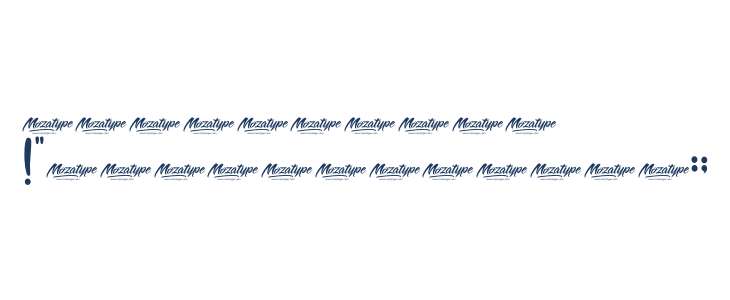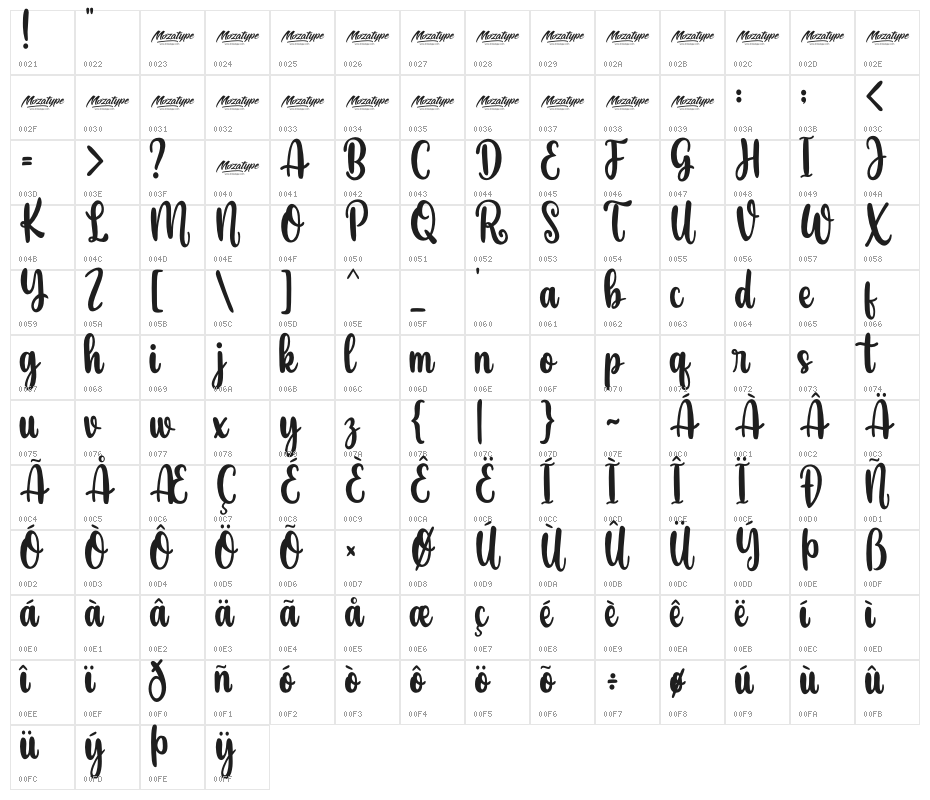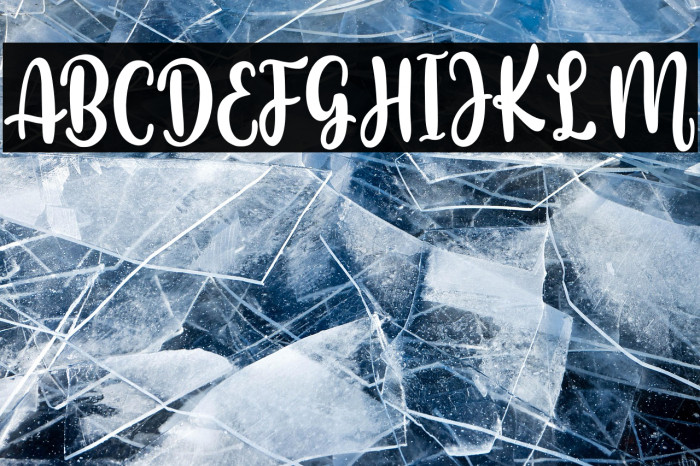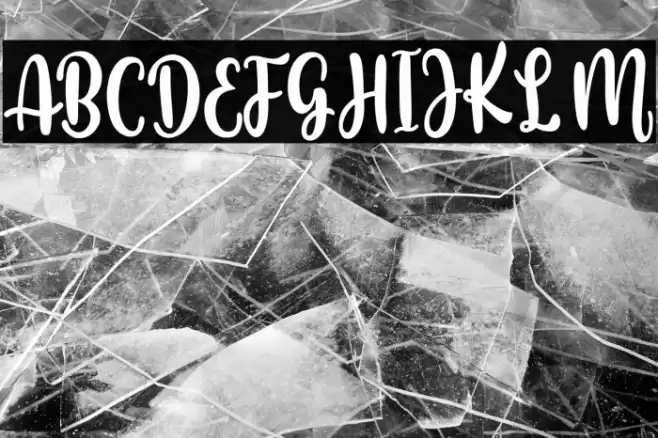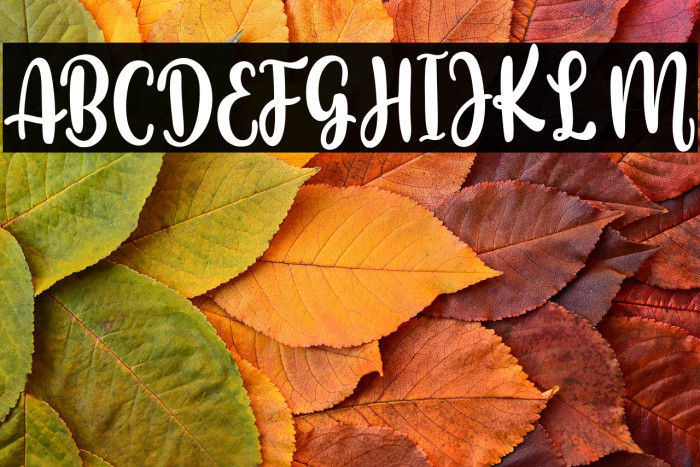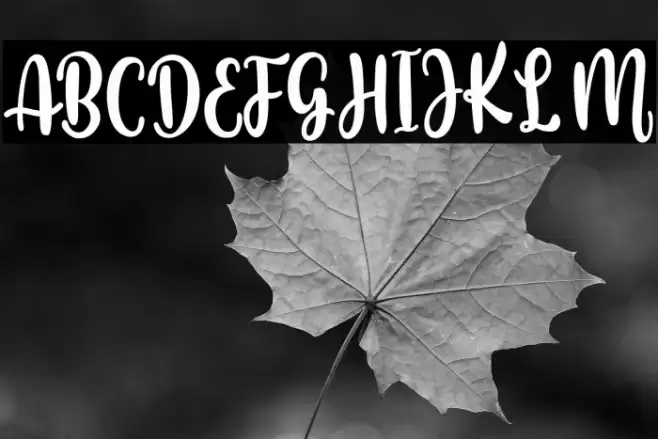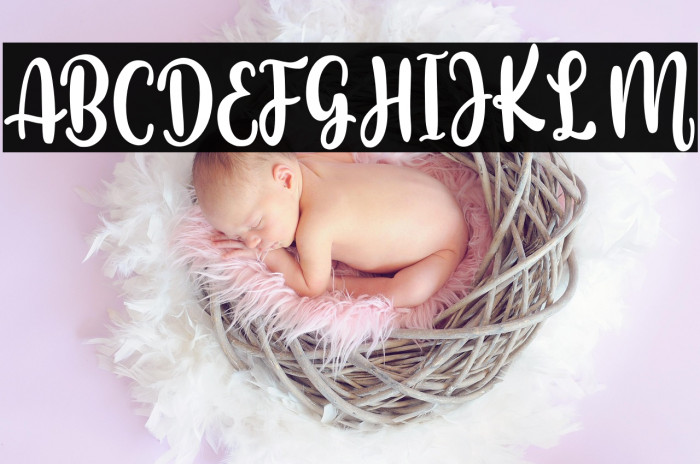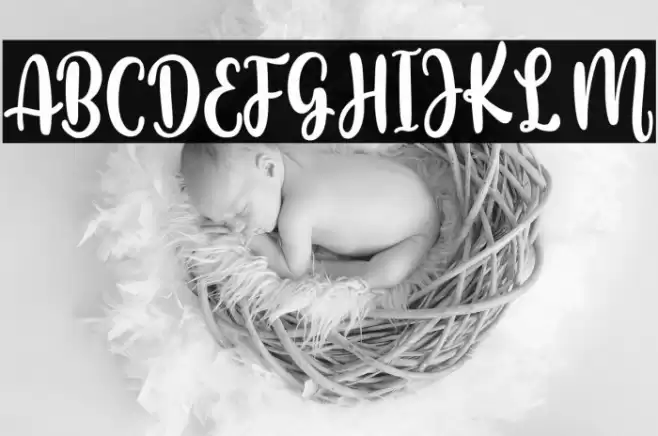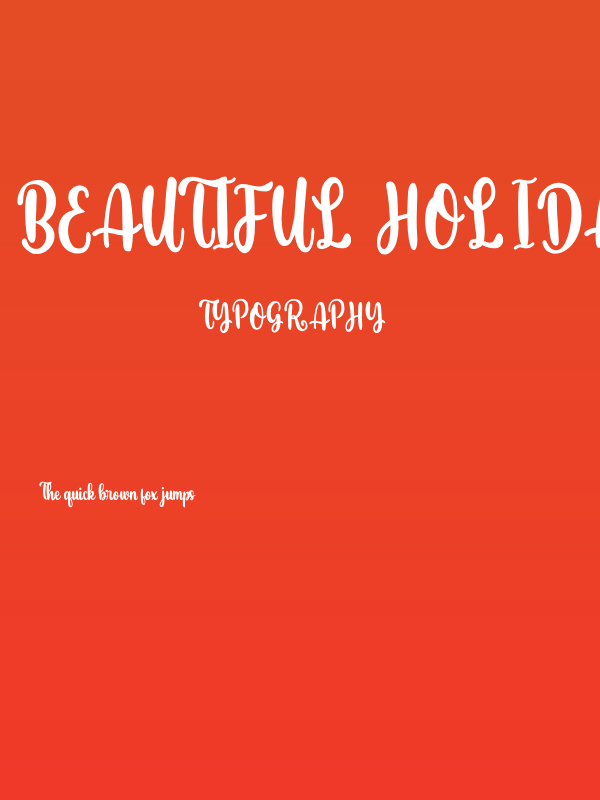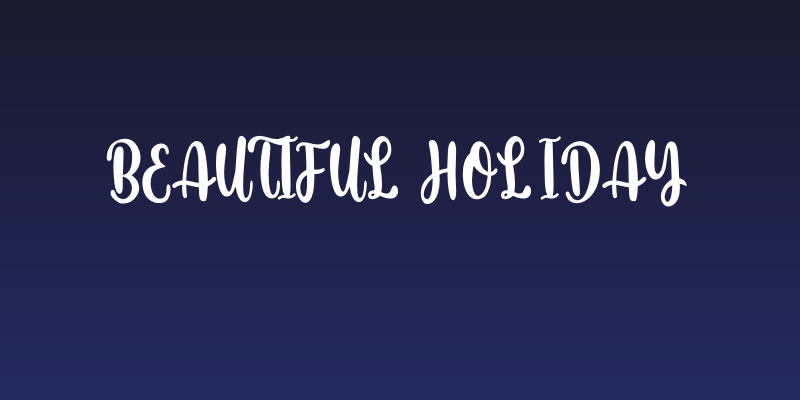
Beautiful Holiday Font
Beautiful Holiday Description
This font features a playful and elegant script style with a handwritten feel. The letters are connected smoothly, creating a flowing and cohesive look. The uppercase letters are bold and prominent, while the lowercase letters maintain a consistent thickness, adding to the overall charm. The font includes a full set of uppercase and lowercase letters, numbers, and a selection of special characters. Its bold strokes and smooth curves make it ideal for creating eye-catching designs.
| Proposed Projects | Ideal for holiday cards, wedding invitations, branding, and social media graphics. |